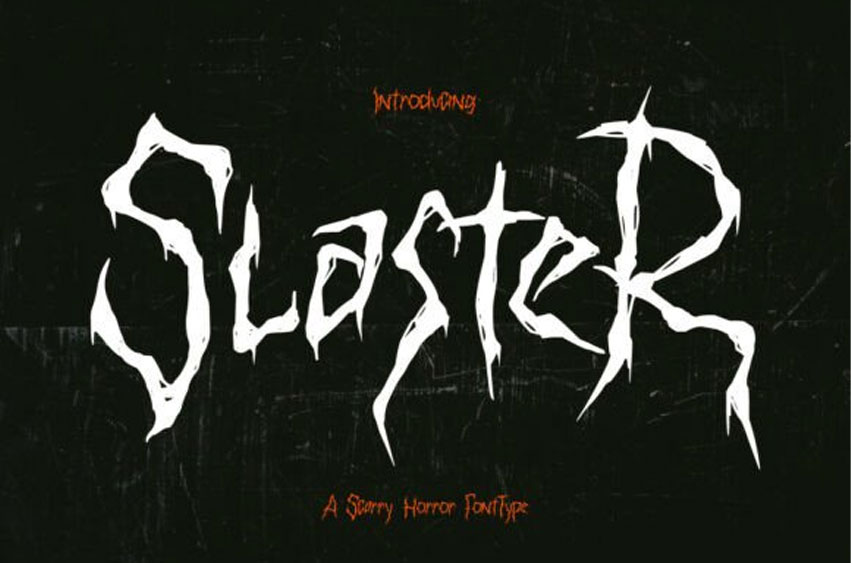
Slaster Font
Slaster Font Give your audience a genuine fright with Slaster, a chilling horror display font designed to deliver pure terror.
This Slaster typeface features aggressive, jagged letterforms that look as if they were frantically carved into a wall or slashed by a killer’s blade. It is the definitive choice for horror movie titles, thriller book covers, and spine-tingling Halloween event branding. The raw, scratchy edges of the Slaster font provide a visceral, unsettling charm that instantly sets a dark and menacing tone.
The Slaster font is a powerhouse for high-impact designs, especially when used in stark white or bloody red against dark, grungy textures. This Slaster typeface is perfect for creating terrifying t-shirts, eerie stickers, and haunting social media graphics that demand immediate attention.
Pair it with atmospheric, shadowy backgrounds and psychological thriller themes to maximize its ghostly impact.
Whether you are designing for a haunted house promotion or an underground metal zine, this typeface ensures your message carries the ultimate horror vibe.